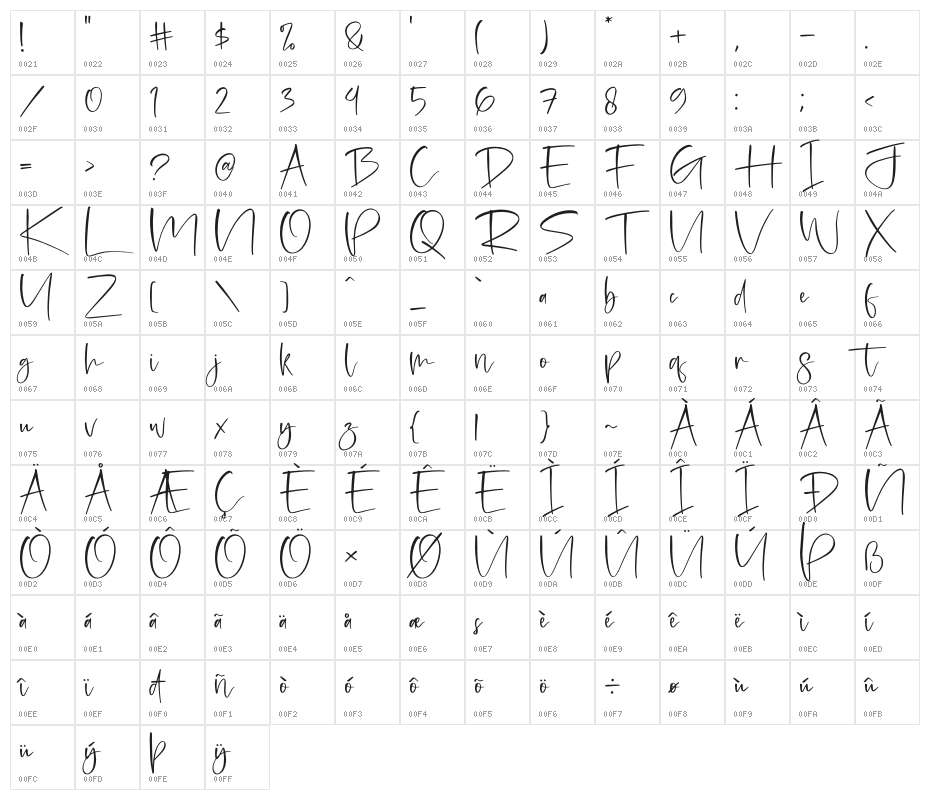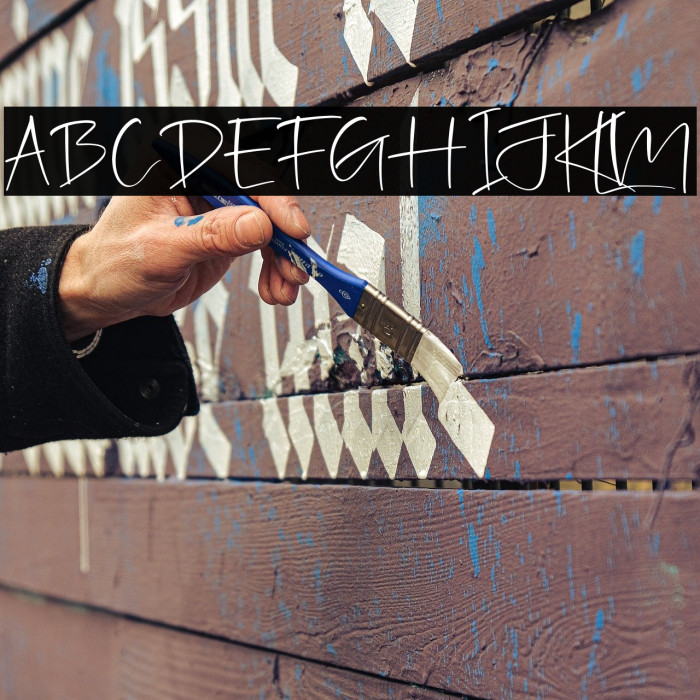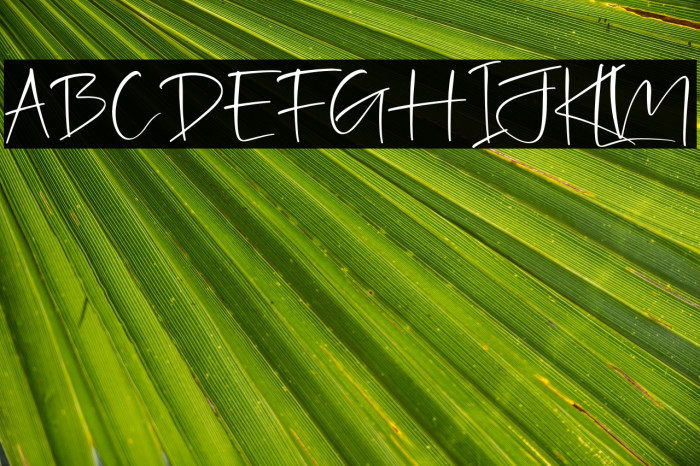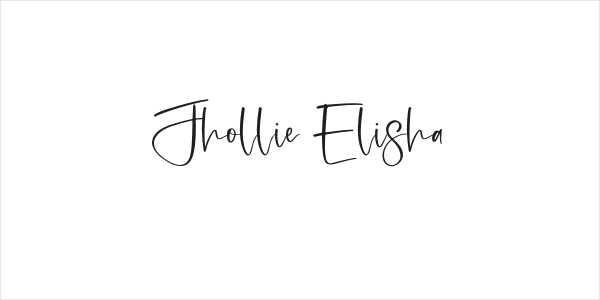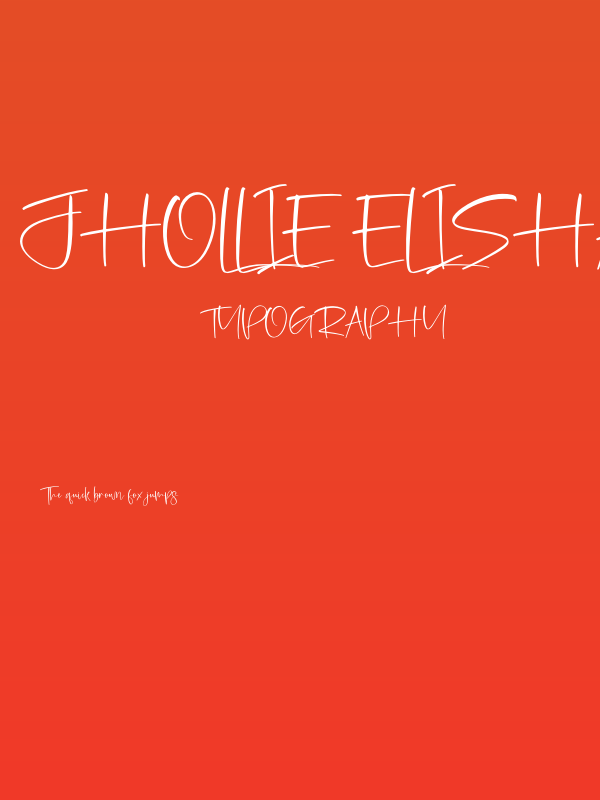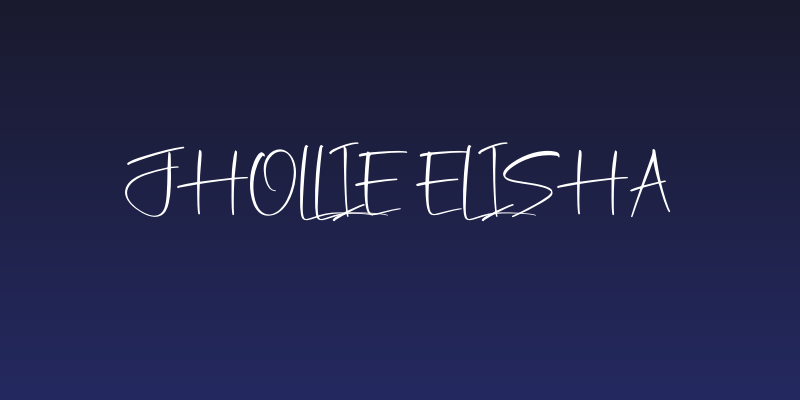
Jhollie Elisha Font
Jhollie Elisha Description
This font features a lively and expressive handwritten style, characterized by its flowing and dynamic strokes. The uppercase letters are tall and slightly narrow, with a playful yet elegant appearance. The lowercase letters maintain a consistent rhythm, with some letters featuring loops and curls that add to the font's whimsical charm. The numerals are clear and easy to read, matching the overall fluidity of the design. Special characters are thoughtfully integrated, maintaining the font's cohesive aesthetic. This font exudes a sense of creativity and personal touch, making it ideal for projects that require a humanistic and approachable feel.